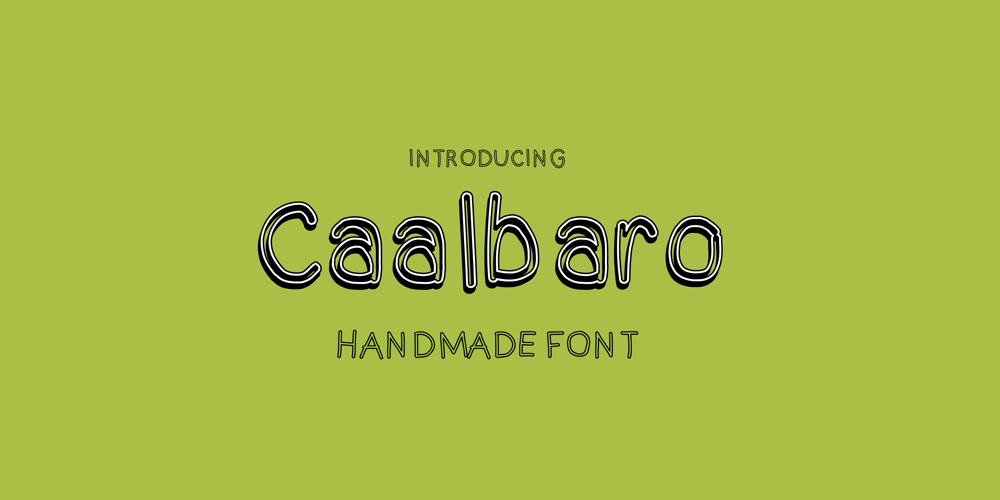
Baro outline Font Family was designed by Carla Baltuano and published by Baltcub. Baro outline contains 1 styles and family package options. This hand-drawn outline font brings a playful, sketch-like feel to any design. With its unique, handcrafted strokes, it adds a creative and artistic touch, perfect for eye-catching headlines, posters, or branding that seeks a bold yet informal aesthetic.